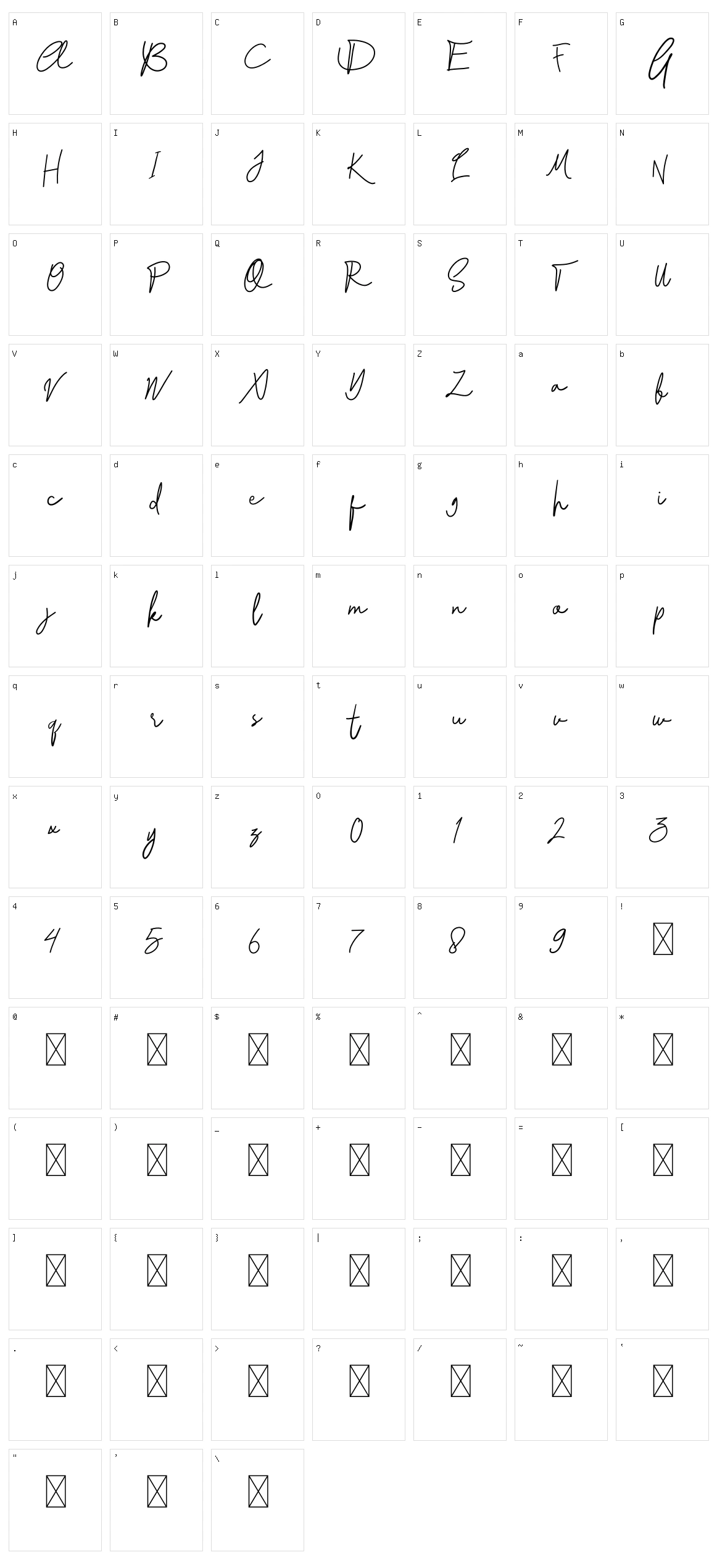
The free font Delilah is carefully designed by Fontruly, showcasing a thoughtful balance of creativity and usability and falls under the Script font style. When you download the ZIP file, it contains only 69.64 KB of font files, making it lightweight and quick to download. Please review the license details below to understand permitted usage and distribution rights. If license information is not available, we recommend using this font for personal projects only or contacting the author directly for commercial usage permissions.